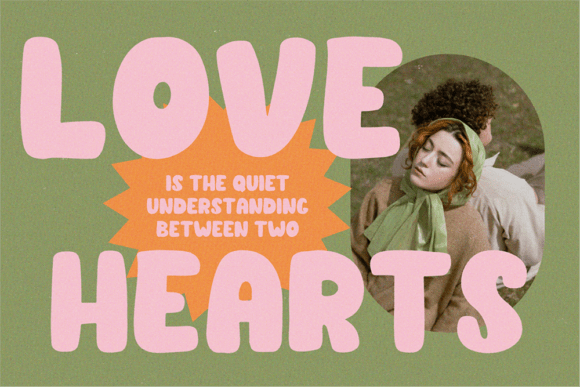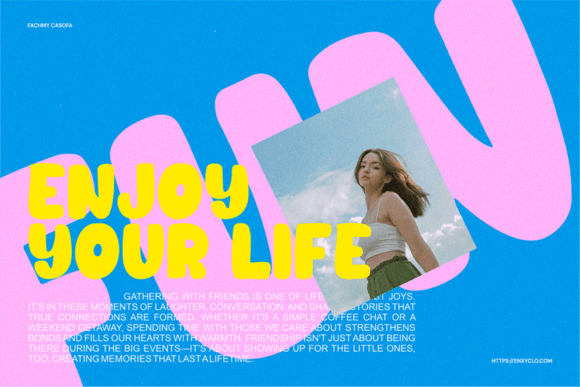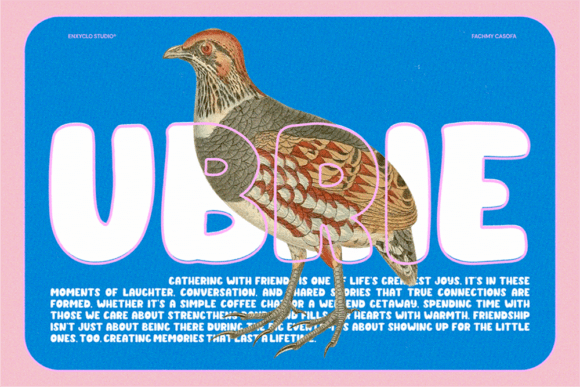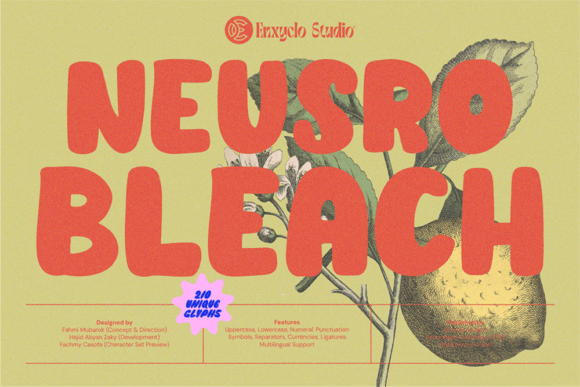
Introduction to Neusro Bleach Font
Neusro Bleach is an exuberant bubble font that exudes a charismatic, rounded boldness.
Crafted to inject energy and character into your texts, this font is an embodiment of joy and mischief Its bulky, funky letterforms are a promise of an interesting, fun, and attention-grabbing element to your designs.
Key Features of Neusro Bleach Font